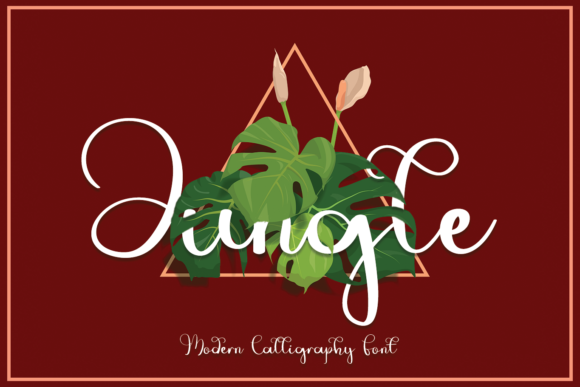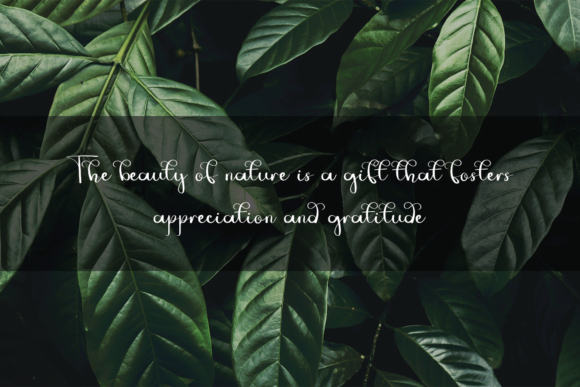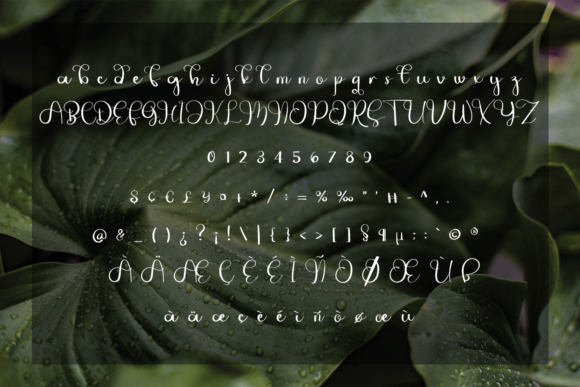
About Jungle Font
Introducing Jungle, a lovely script font that exudes charm and elegance. Neatly crafted and highly detailed, Jungle is a versatile font that can enhance any creation in your font library, regardless of the topic or design context.
Jungle’s lovely script design sets it apart as a font that captures attention and adds a touch of beauty to your projects. Each letter is meticulously crafted with high attention to detail, creating a visually appealing composition. This level of precision and detail adds a sense of refinement and style to your designs, making them stand out.
The versatility of Jungle allows it to shine in various design contexts. Whether you’re working on branding projects, social media graphics, packaging, invitations, or any other creative endeavor, Jungle adds a touch of elegance and flair. Its lovely nature creates a visually captivating and charming aesthetic that enhances the overall visual appeal.
Jungle’s meticulously crafted design and attention to detail make it perfect for adding a delightful touch to your projects. The fine lines and intricate details bring a sense of artistry and beauty. Whether used for wedding stationery, greeting cards, or custom typography, Jungle adds a sense of charm and uniqueness to your compositions.
No matter the topic or design context, Jungle has the potential to enhance any creation. Its versatility and attention to detail make it suitable for a wide range of projects. From romantic and whimsical designs to playful and artistic endeavors, Jungle brings a unique sense of style and refinement, enhancing the overall impact of your creations.
In summary, Jungle is a lovely script font that adds charm and elegance to your projects. Its neatly crafted and highly detailed design captures attention and adds beauty to your compositions. Embrace Jungle’s versatility and let it enhance the beauty and uniqueness of your creations, creating visually captivating compositions that leave a lasting impression.